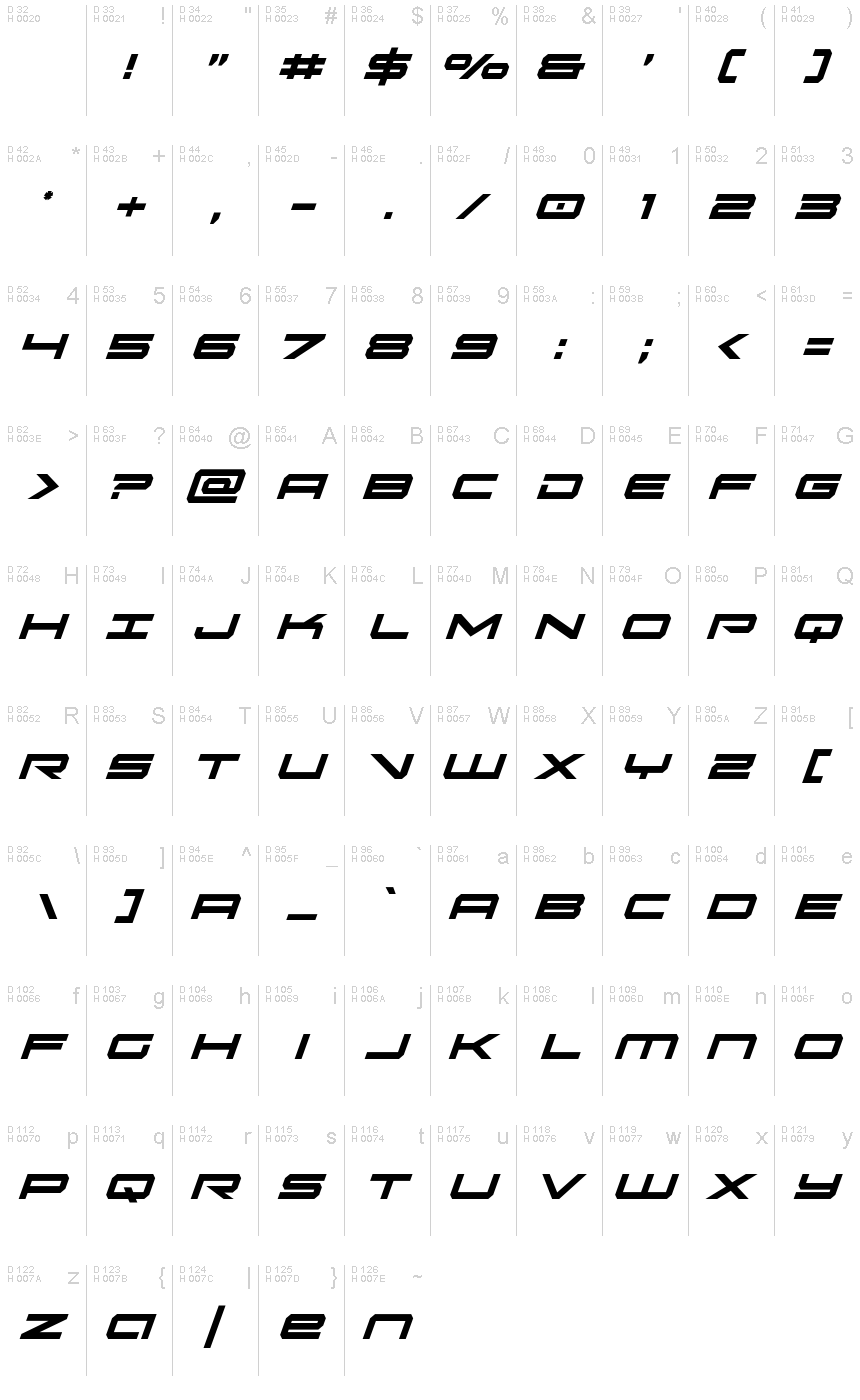
Oramac Condensed Italic
Oramac Condensed Italic is a bold, futuristic display font that commands attention. Crafted by designer Daniel Zadorozny, this expanded typeface exudes a sleek, technologically-driven aesthetic.
The sharp, angular letterforms and streamlined contours convey a sense of modernity and dynamism. Oramac's striking visual impact makes it an ideal choice for headlines, branding, and eye-catching design elements. Its versatility allows it to seamlessly integrate into a range of contemporary applications, from packaging and advertising to digital interfaces and editorial layouts.
Oramac Condensed Italic's distinctive style and strong personality captivate the viewer, making it a standout typographic choice for designers seeking to elevate their work with a touch of futuristic allure.